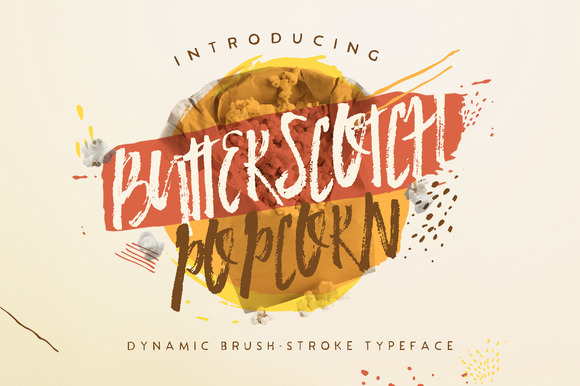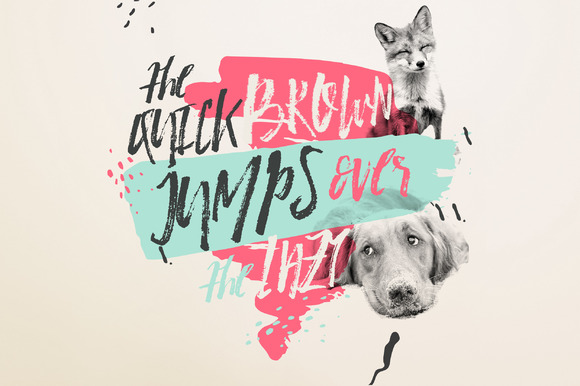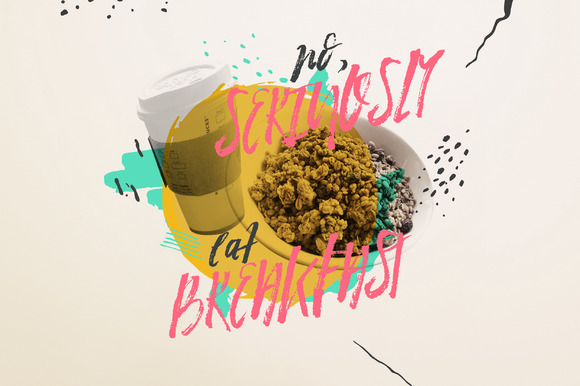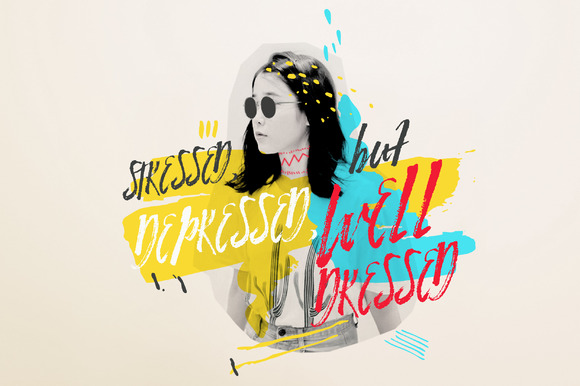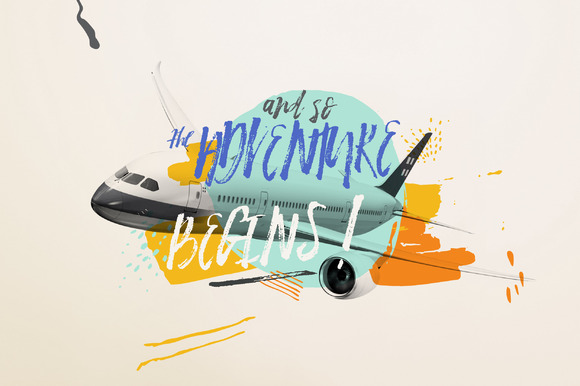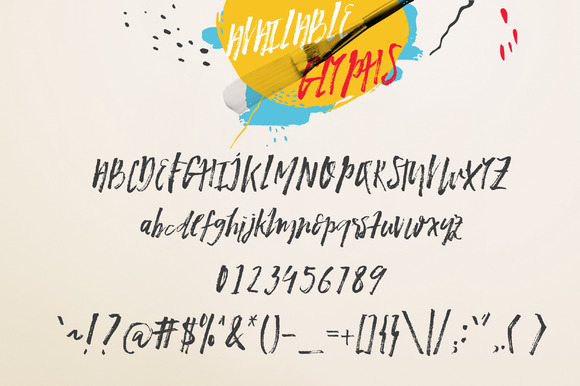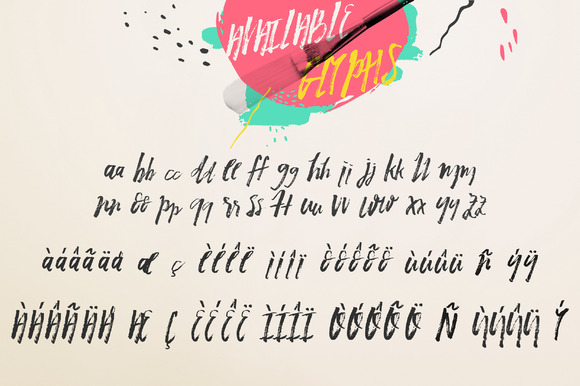
Butterscotch Popcorn Font
About Butterscotch Popcorn Font
The Butterscotch Popcorn font is a unique brush-stroke script font created by the talented KlapauciusCo.
This dynamic font was created completely by hand using a paint brush.